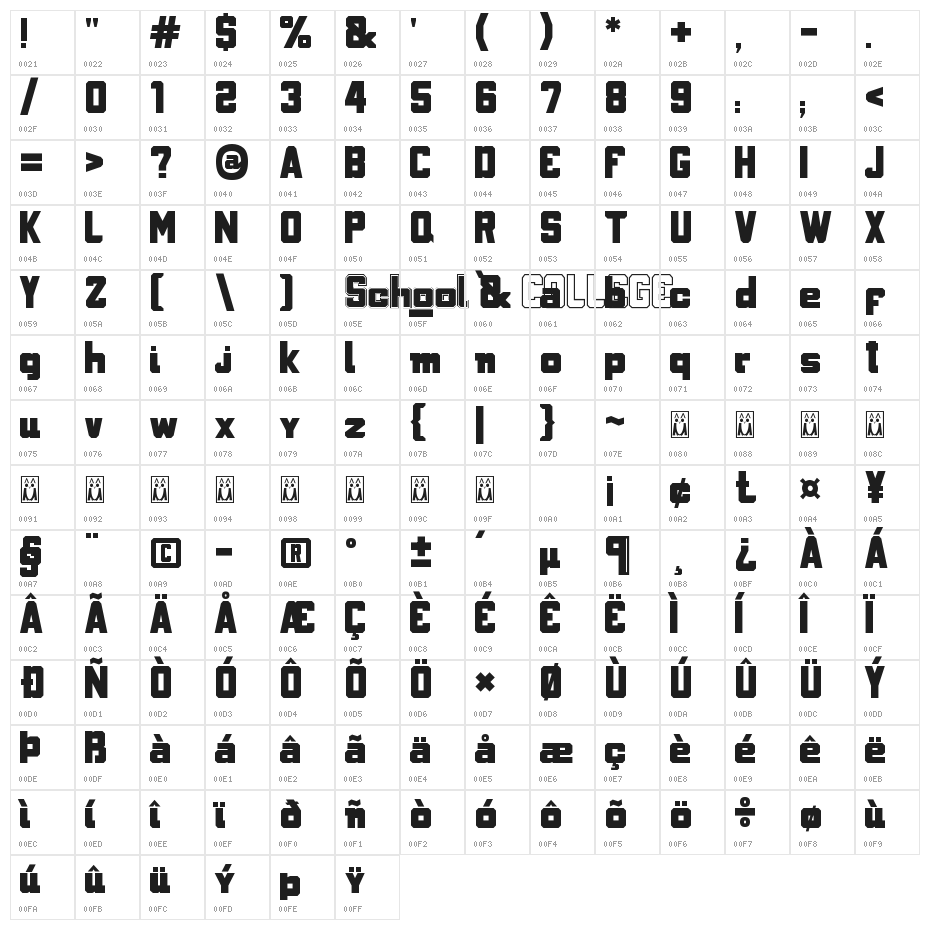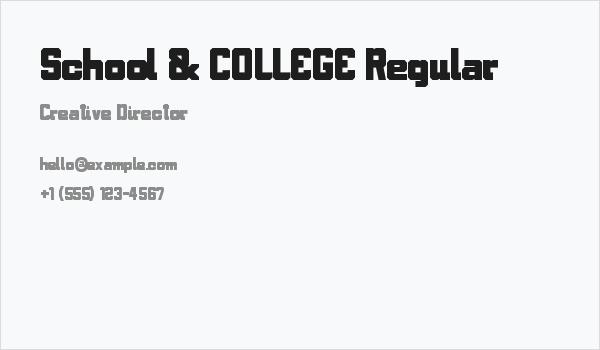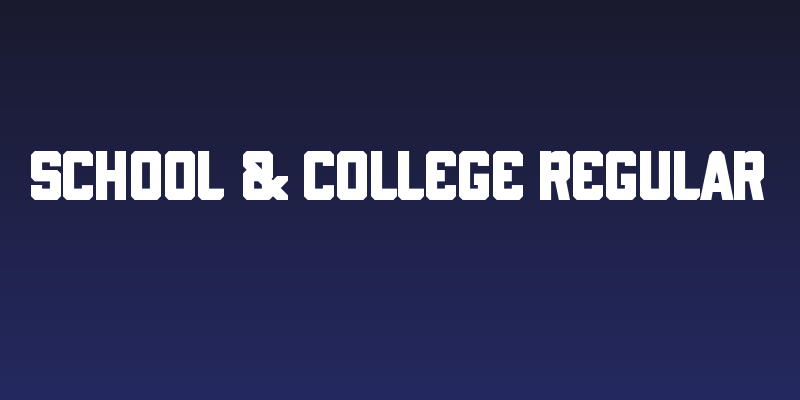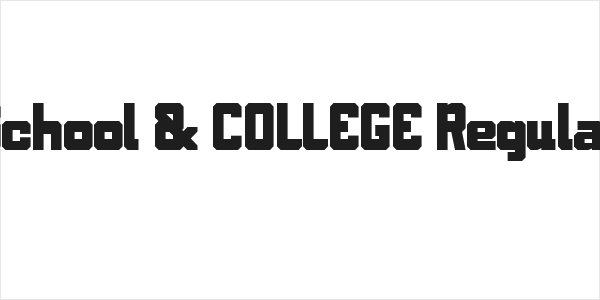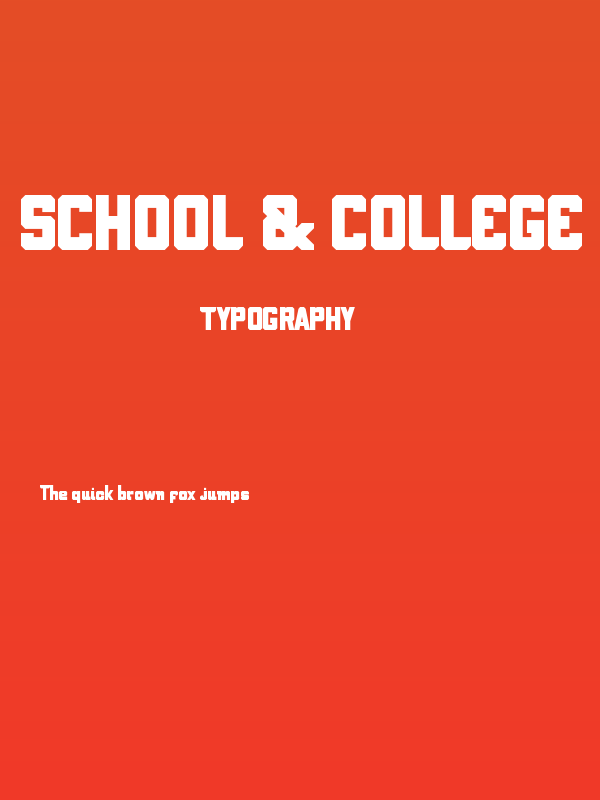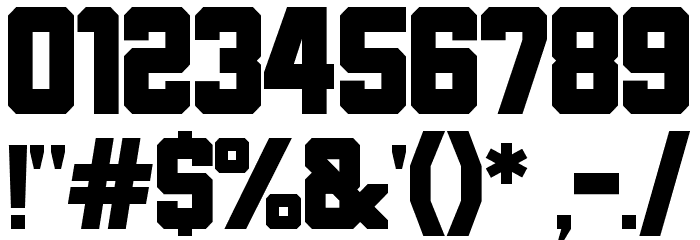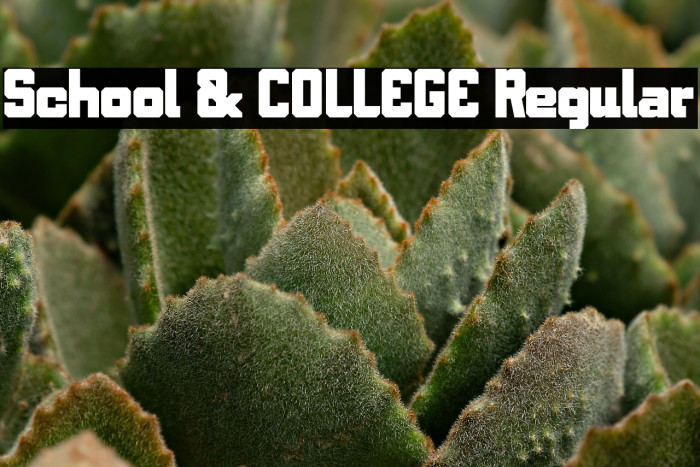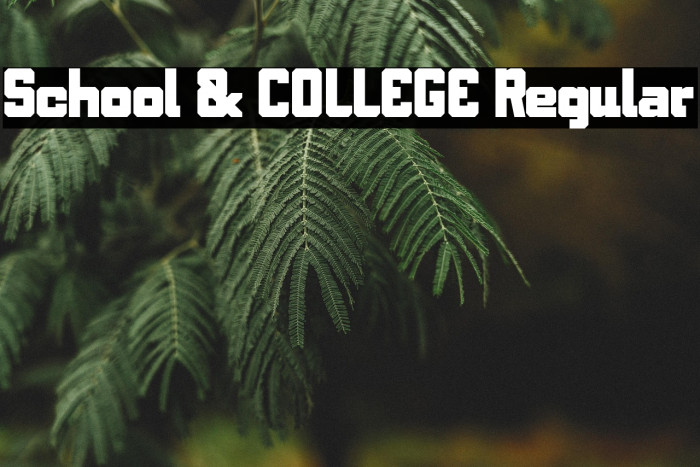
School & COLLEGE Regular Font
School & COLLEGE Regular Description
This font features a bold, geometric design with strong, angular lines and a blocky appearance. The uppercase and lowercase letters maintain a consistent width, giving it a monospaced feel, though it is not strictly monospaced. The numbers and special characters follow the same bold and angular style, ensuring uniformity across all characters. The font's design is reminiscent of collegiate or sports themes, with a robust and impactful presence that commands attention. Its high contrast between the thick strokes and the negative space enhances readability and makes it suitable for various display purposes.